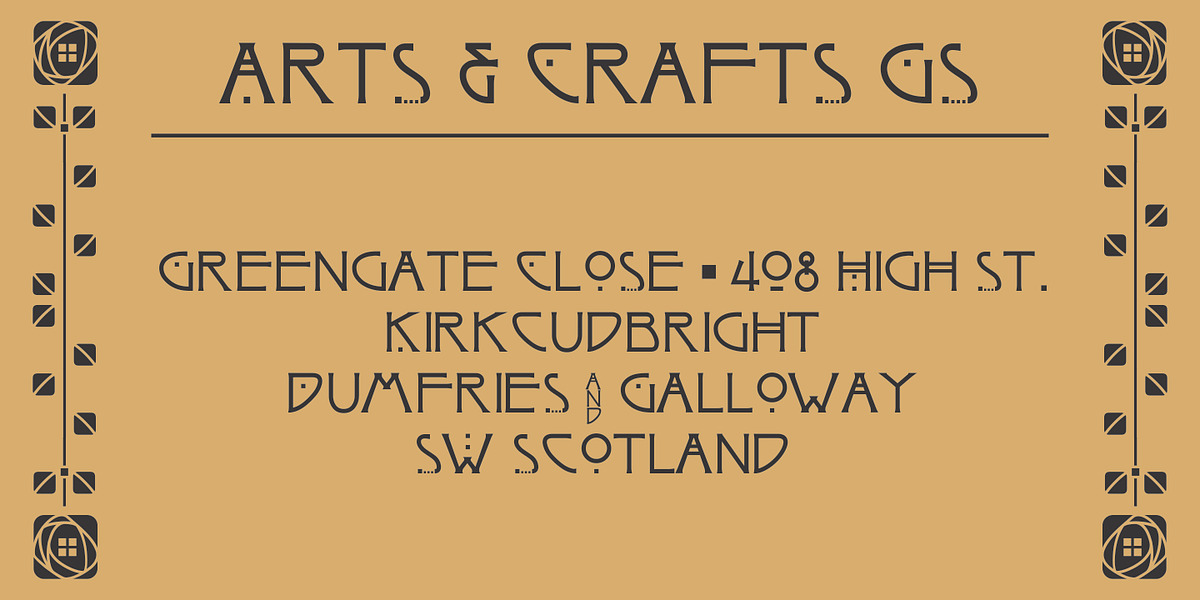
Arts and Crafts-GS
The Arts And Crafts-GS font is a hand-drawn display typeface inspired by the lettering style of Charles Rennie Mackintosh, a prominent figure in the Glasgow School. Its doodle-like aesthetic and all-caps format make it suitable for branding, decorative elements, and invitations seeking a vintage, handcrafted feel.